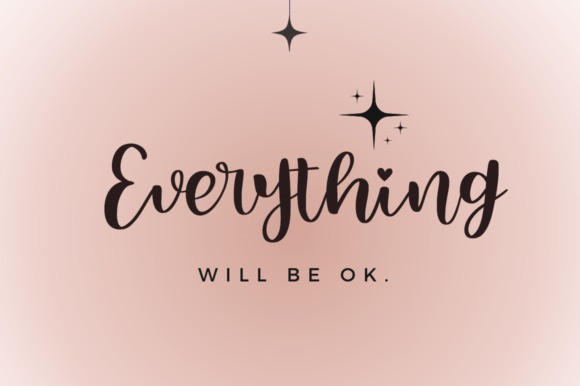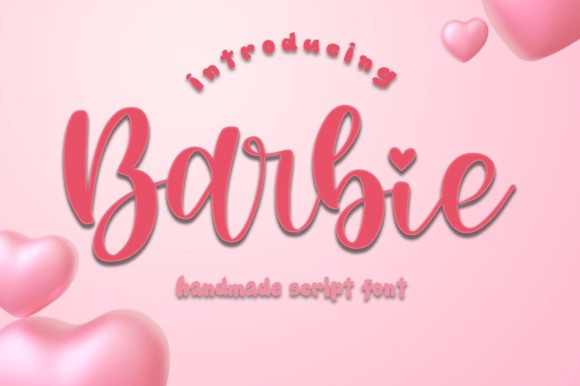
Barbie Script Font
Barbie Script Font, is a modern calligraphy design, including Regular. This font is casual and beautiful with swash. Can be used for various purposes. such as logos, product packaging, wedding invitations, branding, headlines, signage, labels, signatures, book covers, posters, quotes, and more.